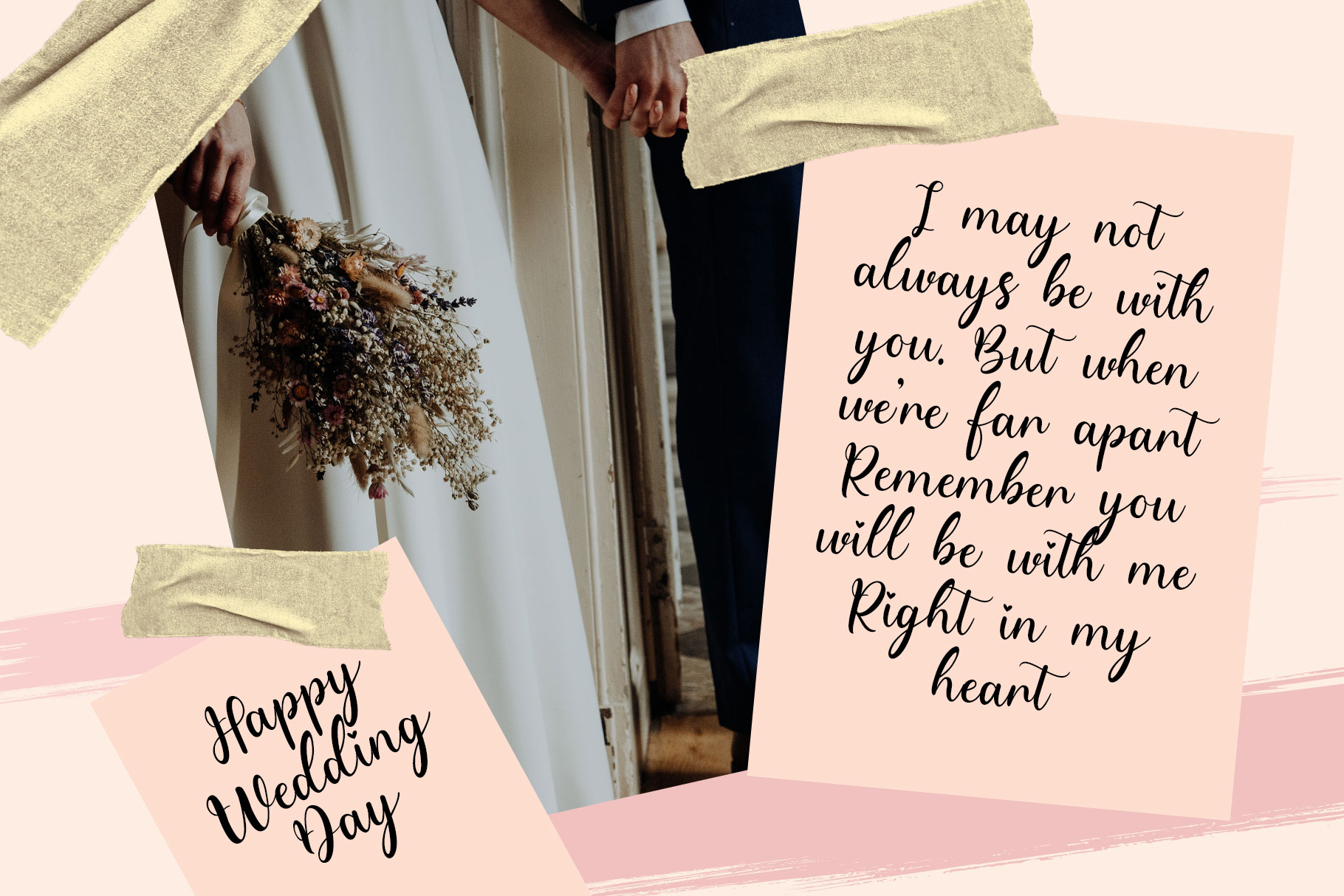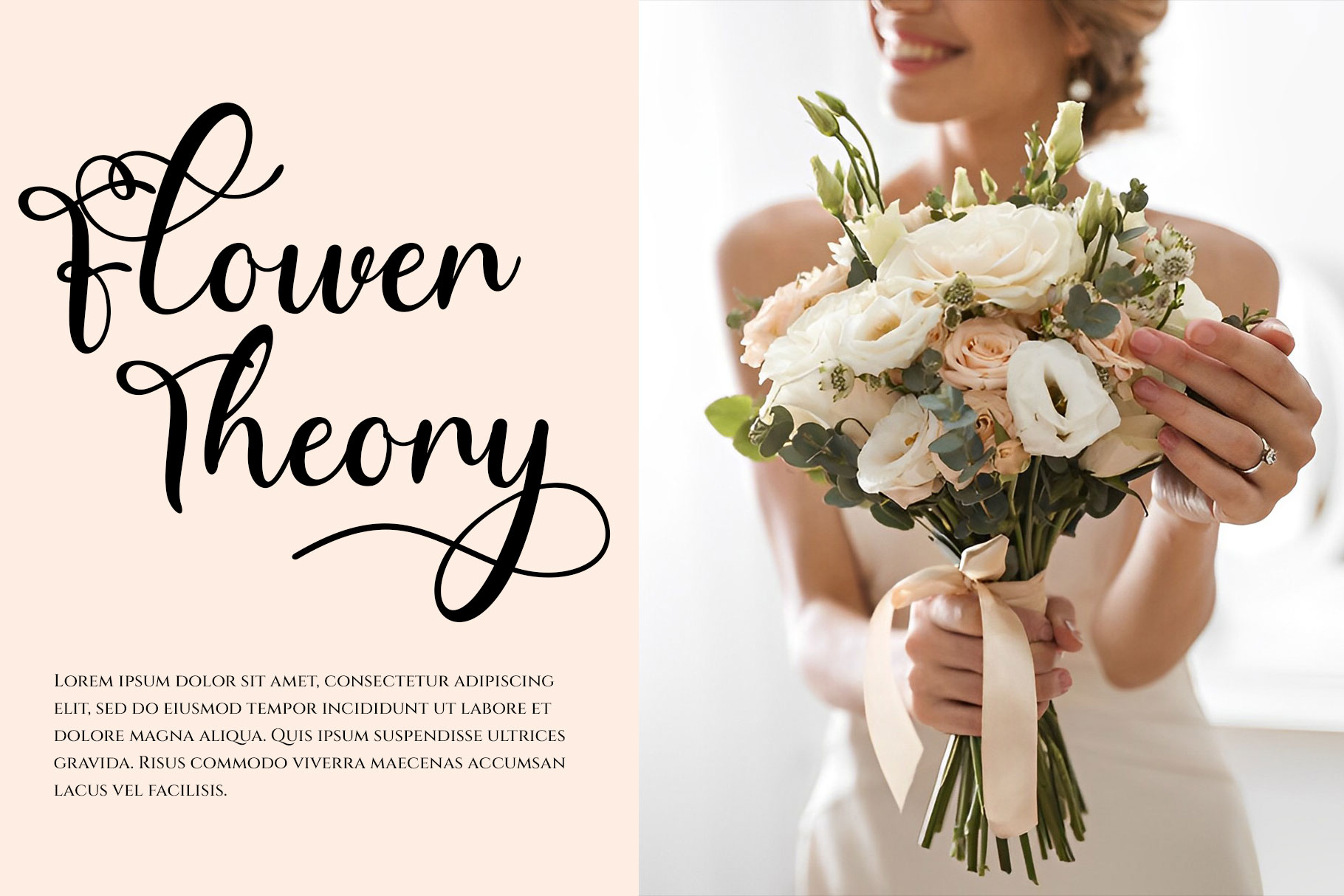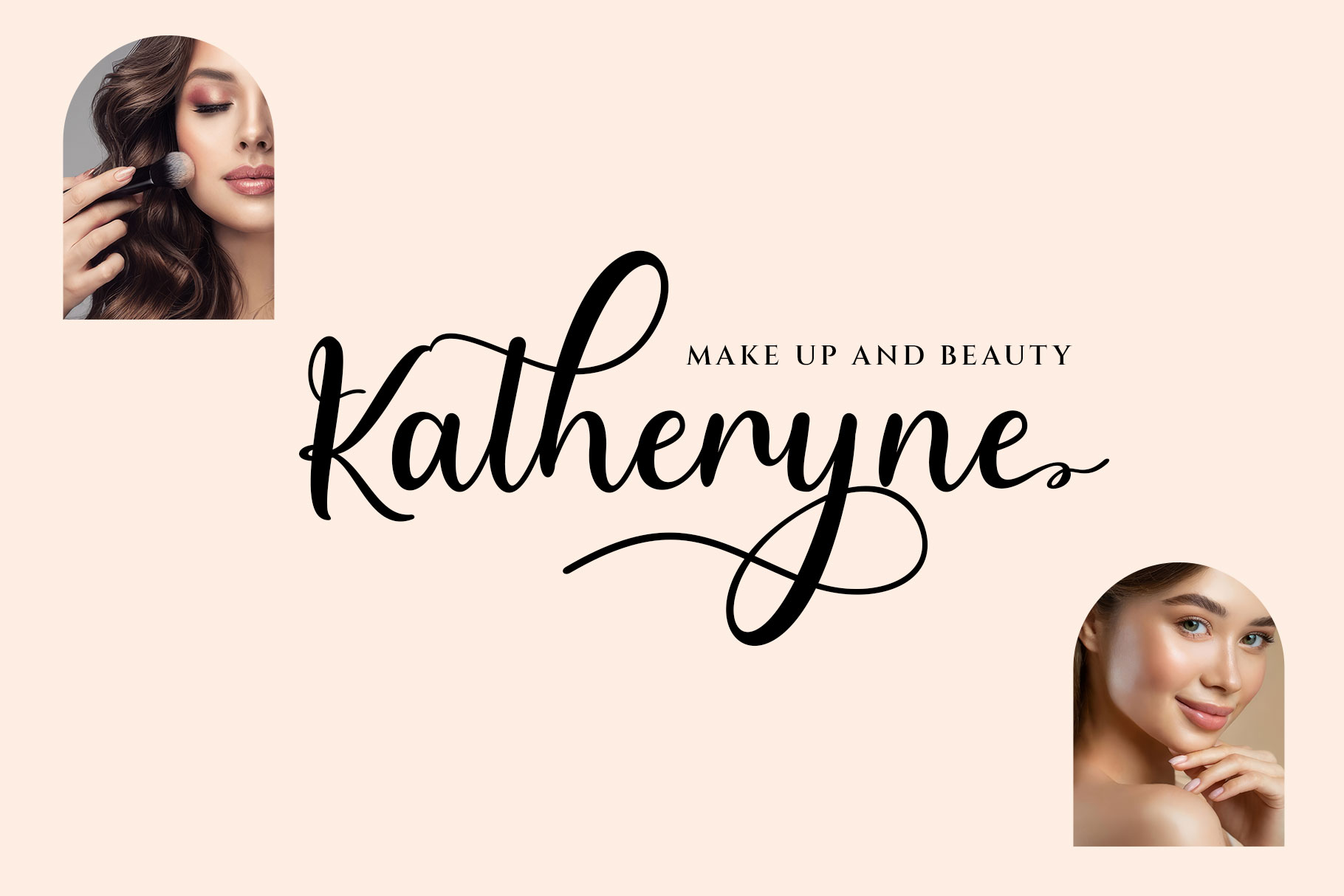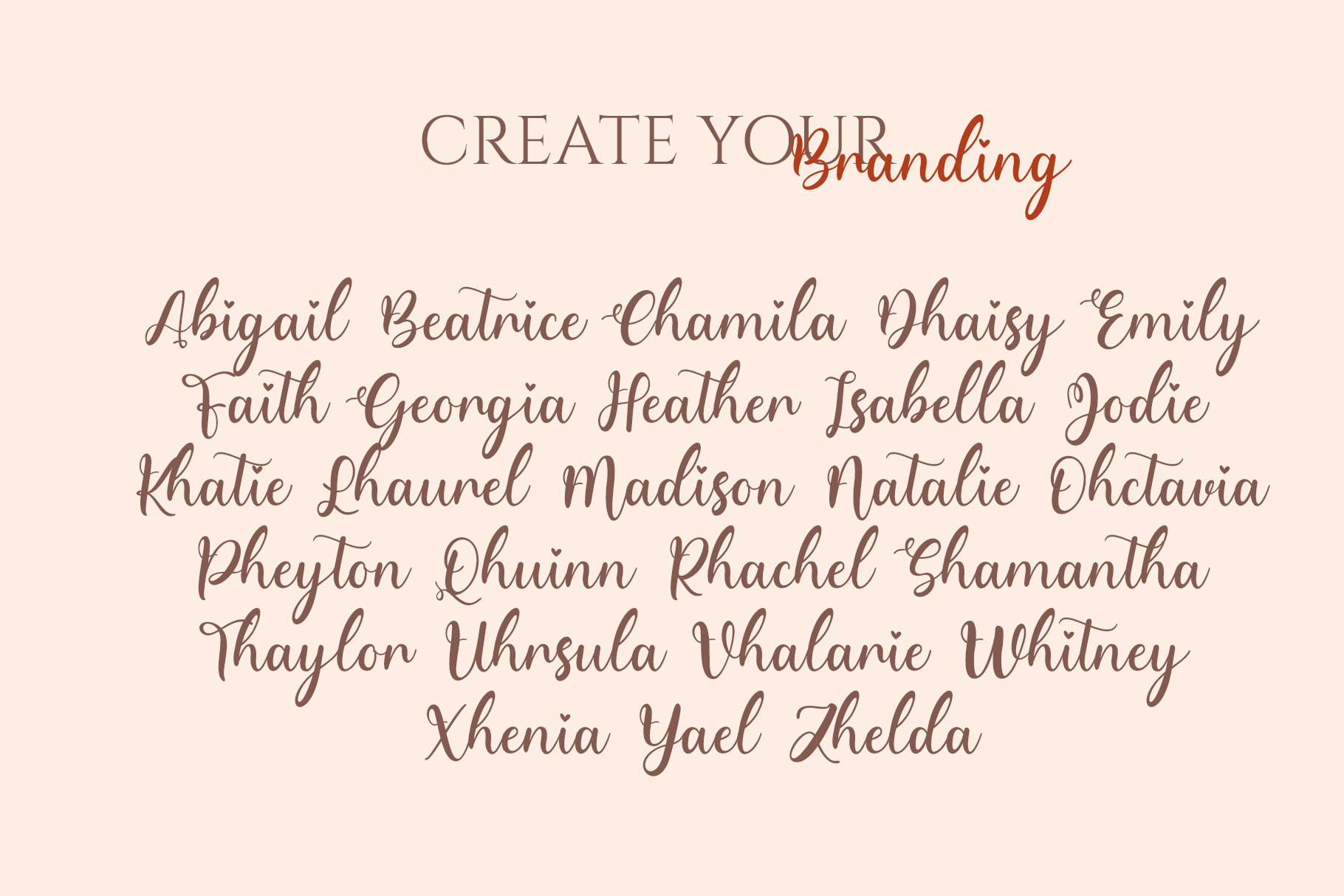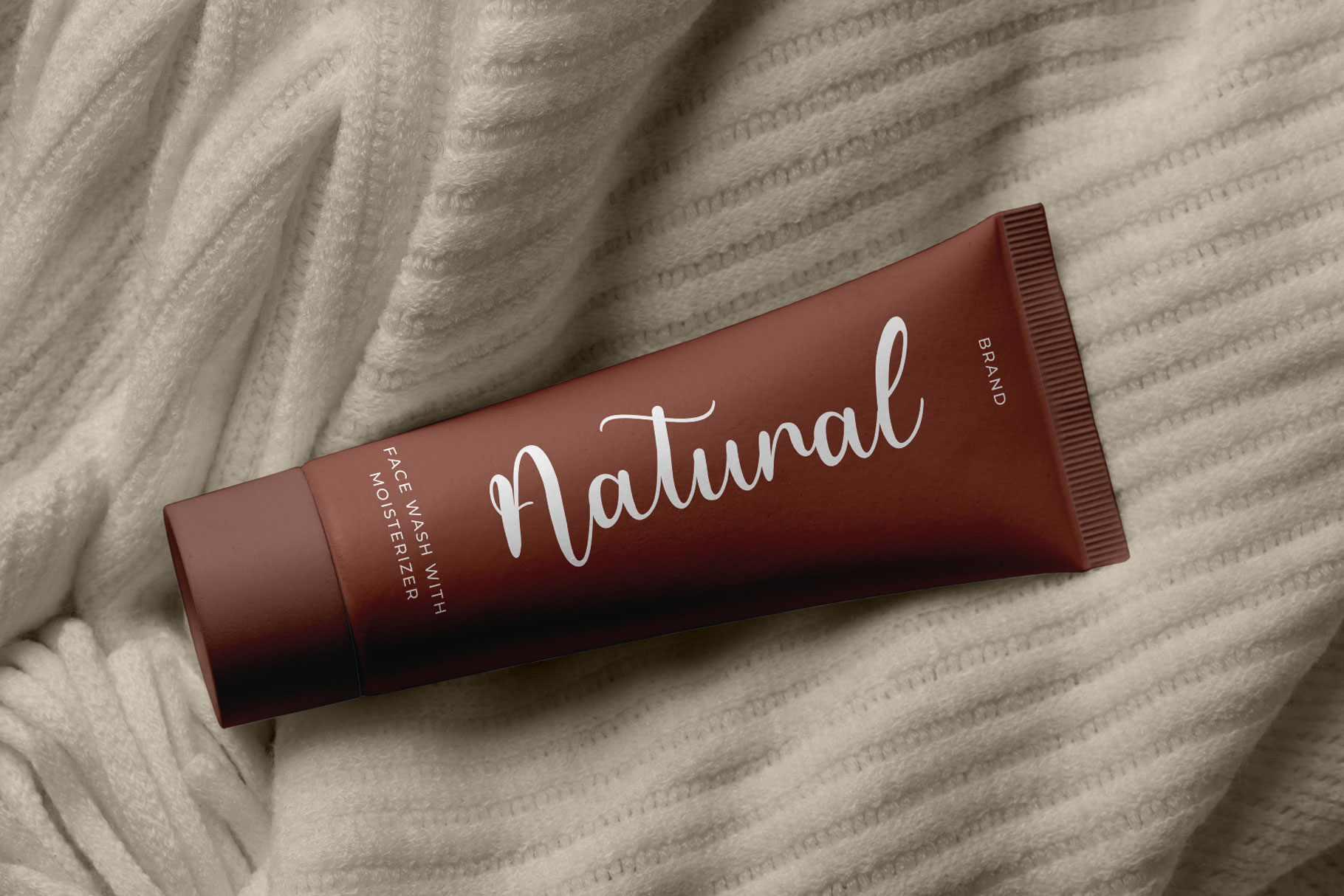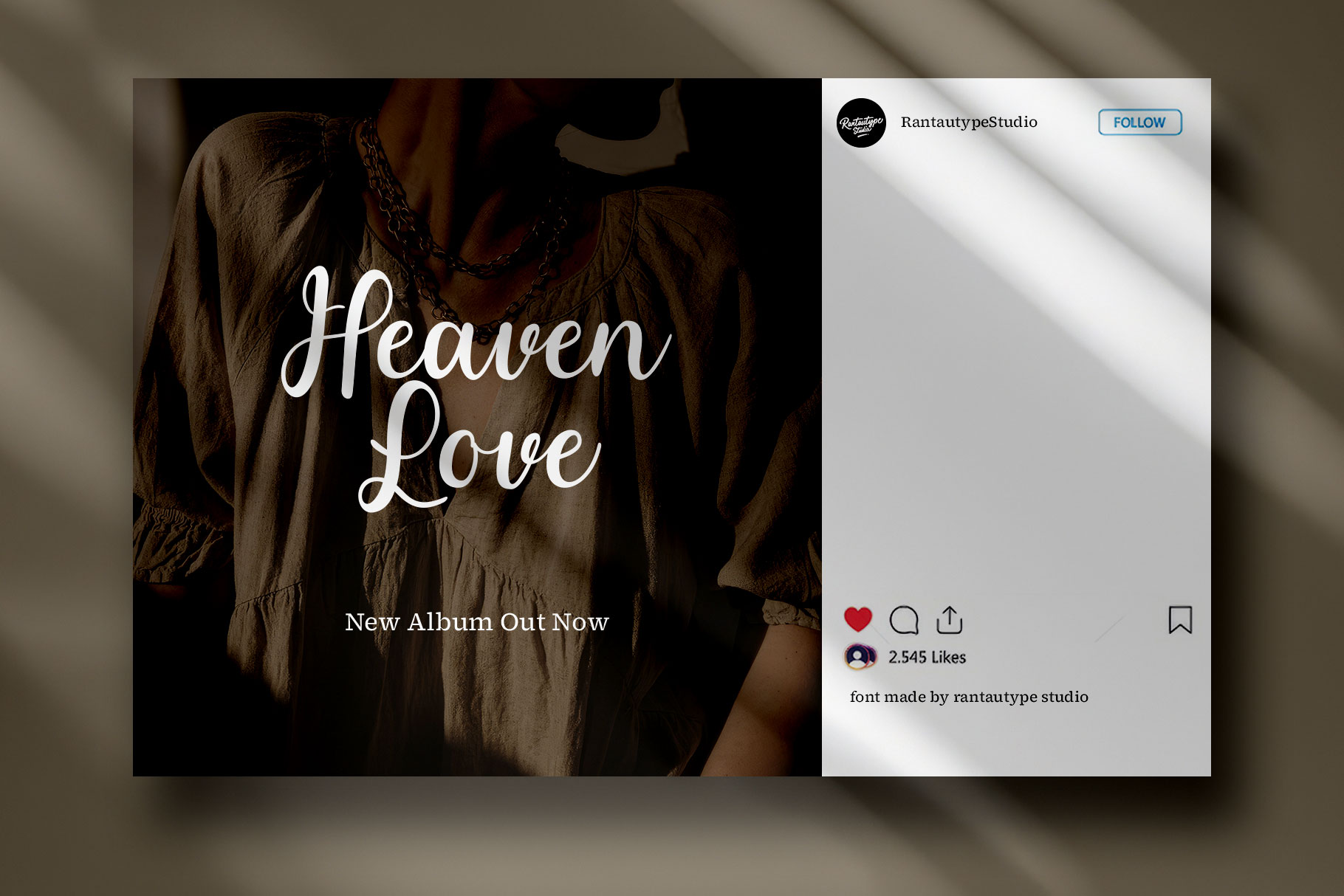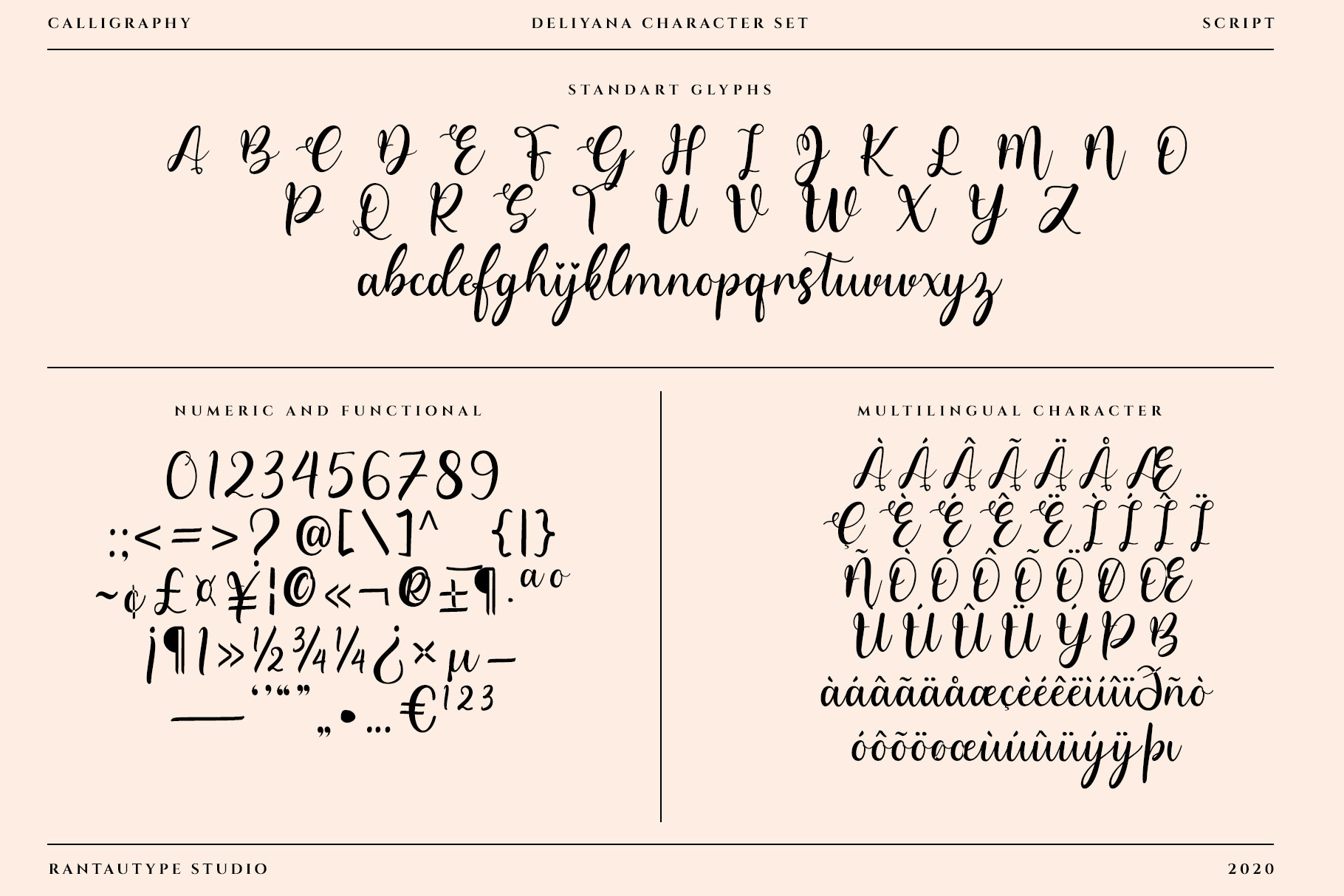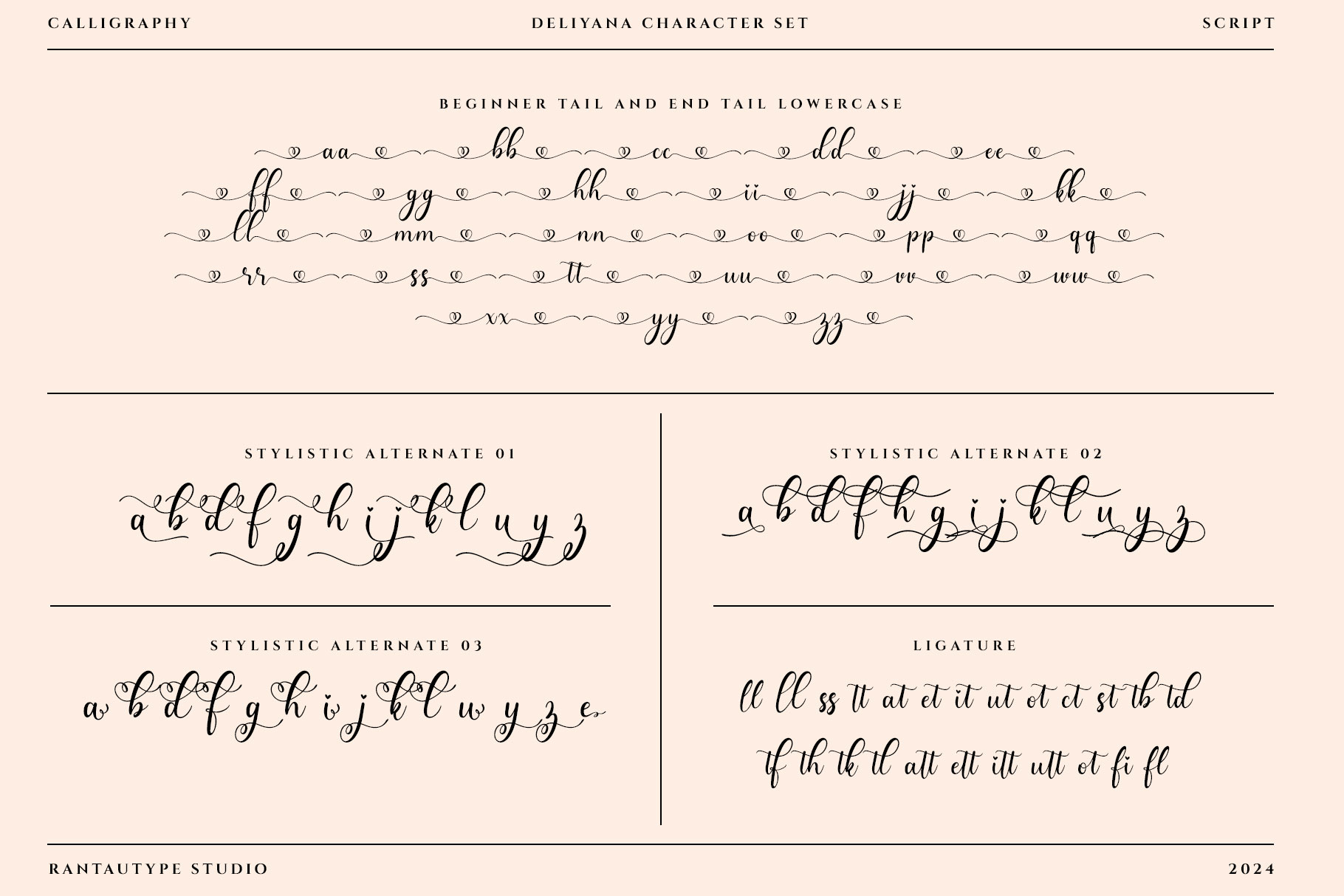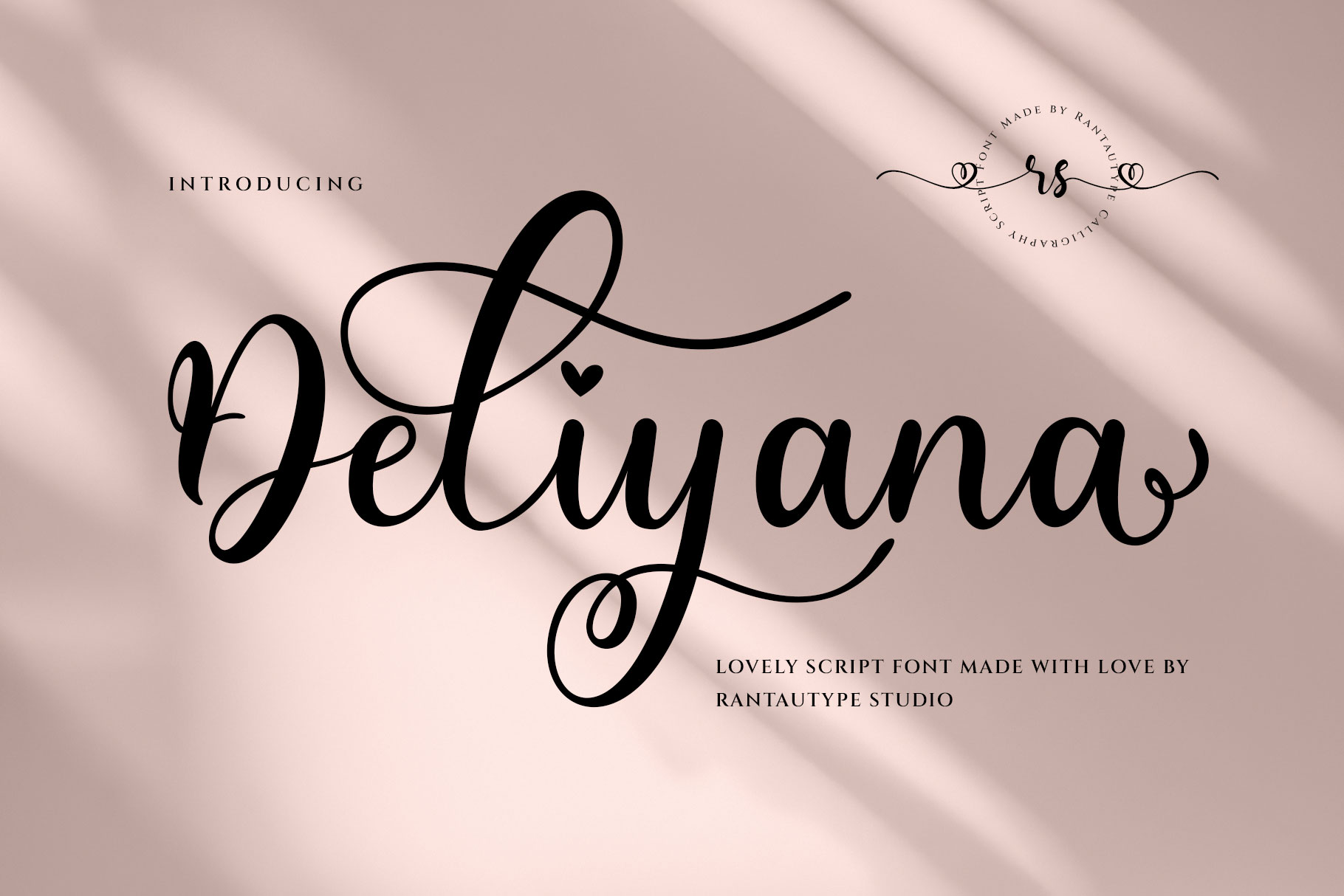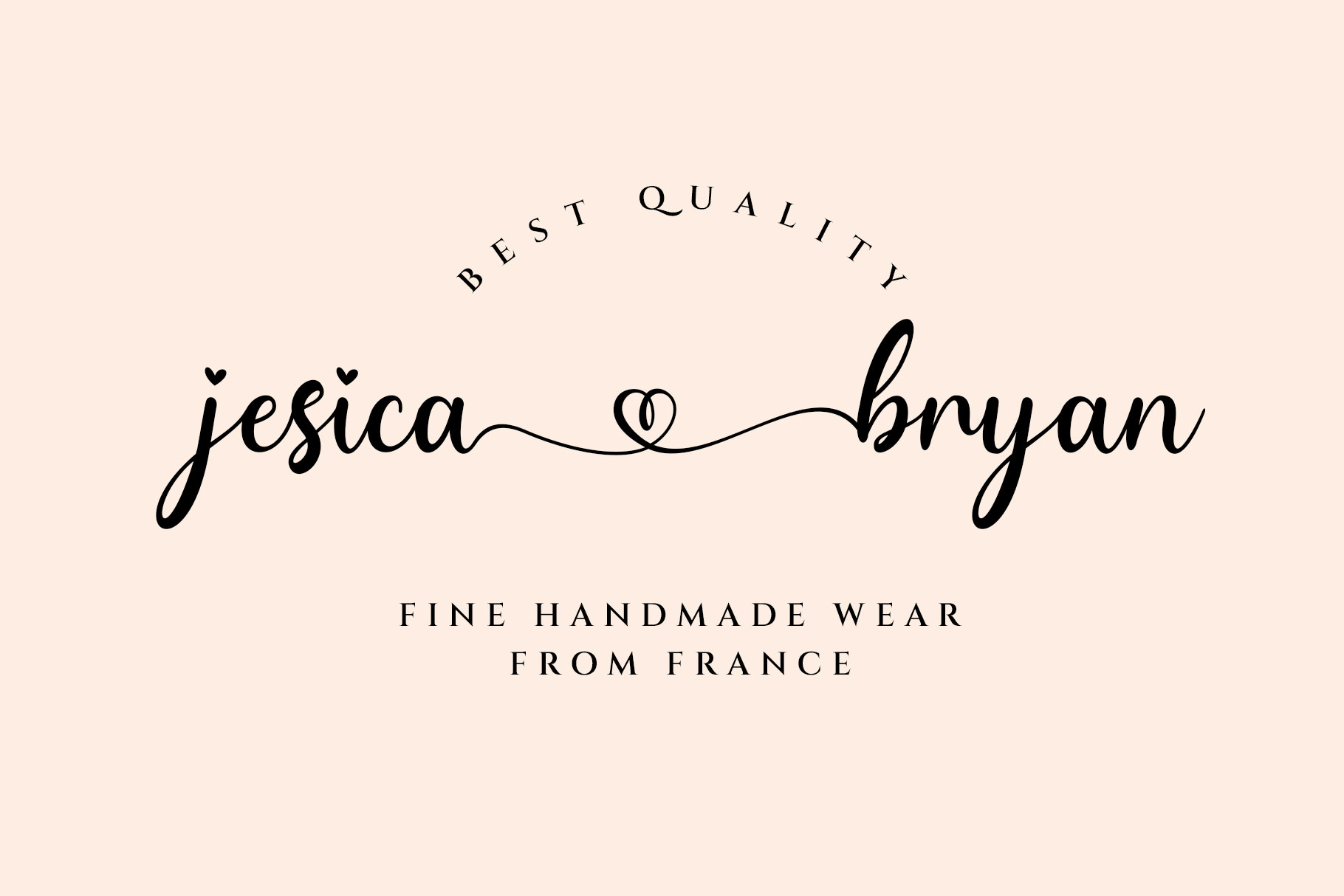
Deliyana Lovely Script Font
Deliyana is lovely script font inspire by wedding moment visual design. Deliyana come with beautiful beginning swash and ending swash create a sense of sophistication and femininity.
Deliyana is a beautiful choice for any creative endeavor, chic, lifestyle design such as logos, title, watermark on photography, cover, branding, display and magazine, wedding event, quotes, album cover, business card, corporate, business project and many other design project with script taste.